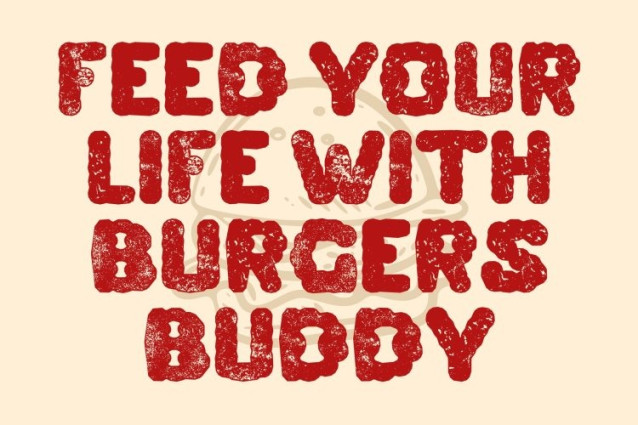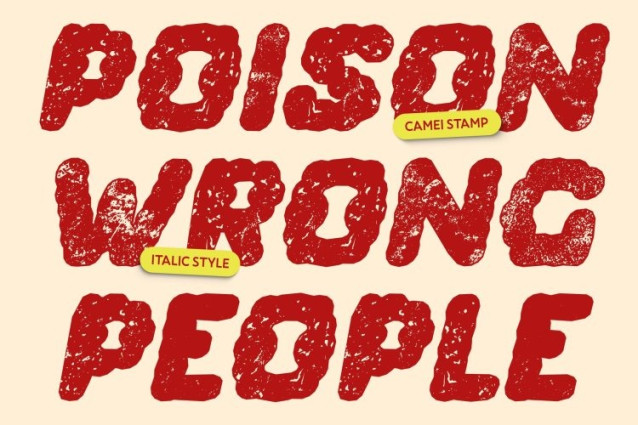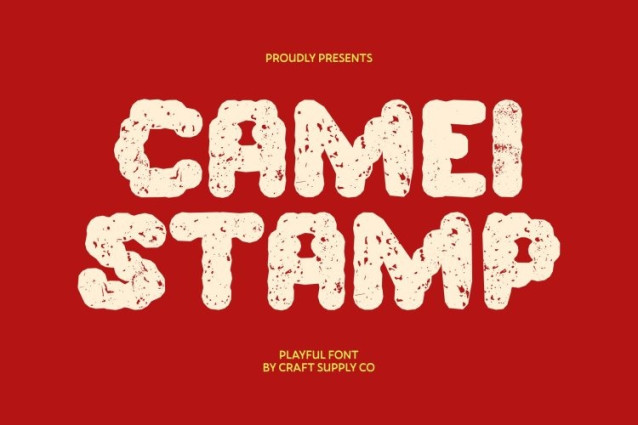
Camei Stamp Font This is a cute and funky bubble display font enhanced with a subtle stamped texture. Its rounded, inflated letterforms maintain their cheerful and playful personality, while soft ink variations and lightly distressed edges introduce a handcrafted, print-inspired feel. This combination makes the font feel lively, warm, and full of character.
Fun, Bold, and Visually Memorable
The bold bubble shapes create strong visual impact, perfect for grabbing attention instantly. With the added stamped effect, each letter gains depth and texture, giving the design a tactile quality that feels both nostalgic and expressive. It’s a delightful choice for projects that aim to feel joyful, unique, and engaging.
Perfect for Eye-Catching Display Designs
This font shines in headlines, banners, posters, packaging, logos, and social media graphics. Its playful structure makes messages easy to notice and remember, while the textured finish adds extra personality that helps designs stand out even more.
Playful Energy with Creative Versatility
Despite its fun and bubbly nature, this font remains versatile across various creative applications. Whether used in branding, digital content, or print materials, it delivers a charming and distinctive presence. If you’re looking to add a cheerful, memorable touch with a hint of vintage texture, brings joyful expression to every design.